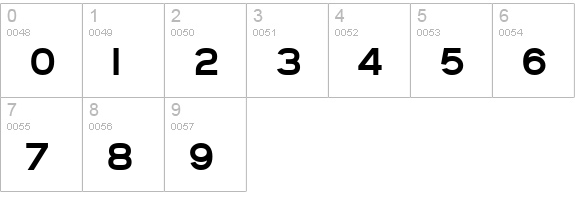
SF Arborcrest Heavy Font Details
SF Arborcrest Heavy is a heavy, high-impact variant in the SF typeface family \xE2\x80\x94 well suited to high-impact headlines, posters, and display advertising.
SF Arborcrest Heavy is a captivating and bold font that exudes strength and power. With its thick and solid letterforms, this typeface commands attention and makes a lasting impact. Its sturdy and commanding presence is perfect for headlines, titles, and logos, as it effortlessly captures the essence of authority and confidence. This font's distinct and prominent lines give it a unique character that stands out from the crowd. The carefully designed letterforms ensure maximum legibility, making it a versatile choice for a variety of design projects. Whether used in print or digital media, SF Arborcrest Heavy guarantees a visually striking and impactful result. What makes SF Arborcrest Heavy even more appealing is that it is free! Yes, you read that right - this incredible font is freely available to download at FontsMarket.com. Now you can enhance your designs without any additional cost or hassle. So why wait? Head over to FontsMarket.com and get your hands on SF Arborcrest Heavy today. Unleash its power and make your designs truly unforgettable.